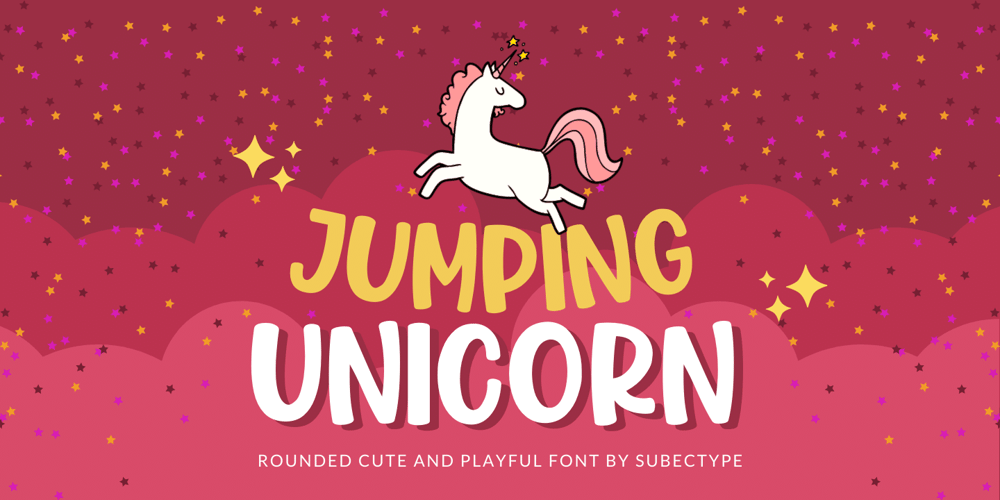
Jumping Unicorn Font Family was designed by Rangga Subekti and published by Subectype. Jumping Unicorn contains 1 styles and family package options. Jumping Unicorn is a sweet and friendly display font. Its natural and cute style makes it incredibly fitting to a large pool of designs. The only limit is your imagination!